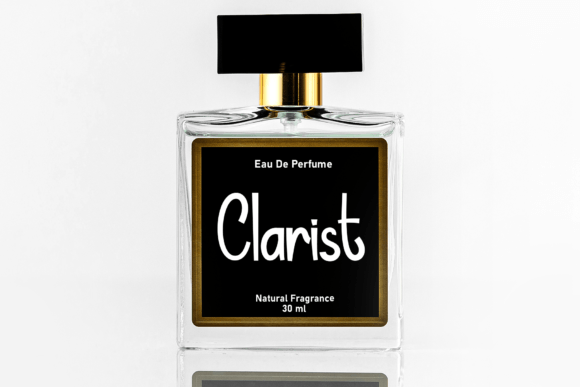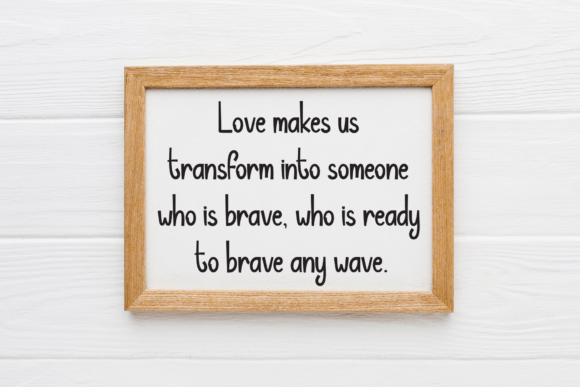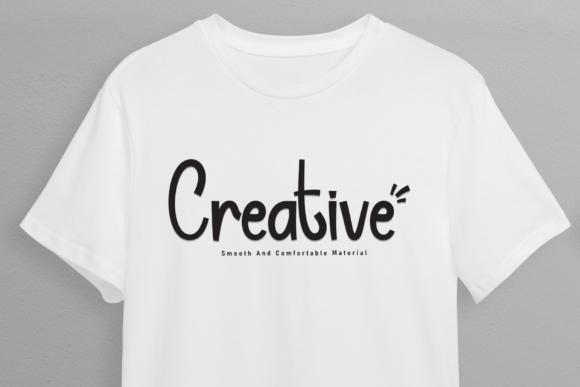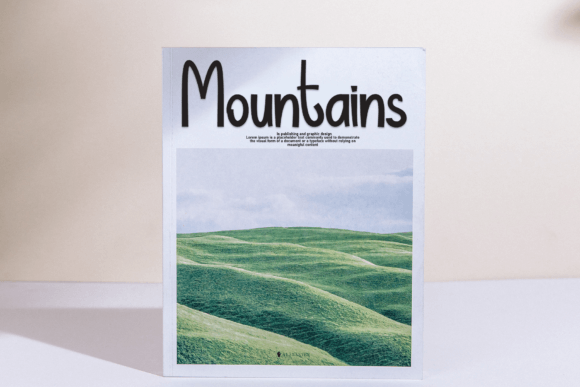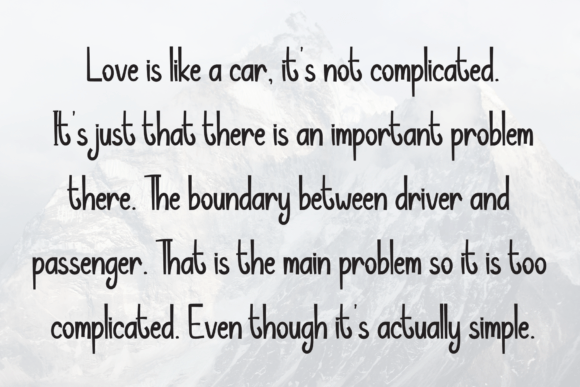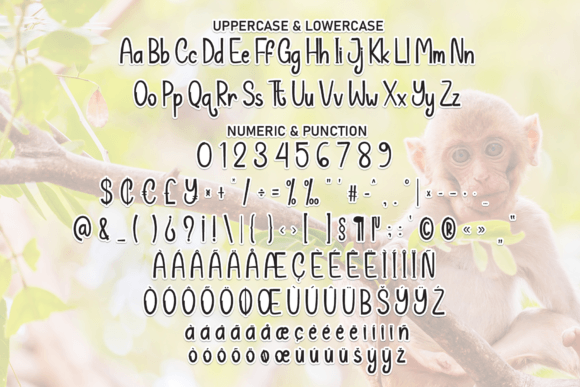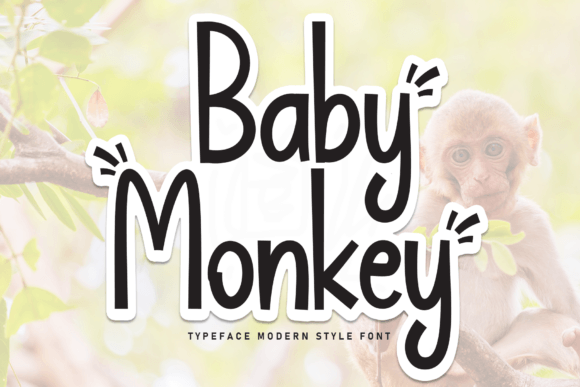
Baby Monkey Font: A Charming Handwritten Typeface for Creative Projects
Are you looking for a font that can add a personal touch to your designs? Look no further than the Baby Monkey Font. This charming handwritten font combines elegance with a whimsical character, making it perfect for a variety of creative projects. In this article, we’ll take a closer look at the Baby Monkey Font, its features, and how you can use it to bring warmth and personality to your designs.
What is Baby Monkey Font?
Baby Monkey Font is a beautiful handwritten typeface that is designed to evoke a sense of warmth and coziness. Its smooth, flowing strokes and whimsical character make it perfect for projects that require a personal touch. Whether you’re designing invitations, branding materials, or creative projects, Baby Monkey Font is a versatile typeface that can help you achieve your design goals.
Features of Baby Monkey Font
So, what makes Baby Monkey Font so special? Here are some of its key features:
- Smooth, flowing strokes: Baby Monkey Font features smooth, flowing strokes that give it a elegant and refined look.
- Whimsical character: The font has a playful and whimsical character that makes it perfect for creative projects.
- Handwritten feel: Baby Monkey Font has a handwritten feel that gives it a personal and unique touch.
- Versatile: The font is versatile and can be used for a variety of projects, including invitations, branding materials, and creative projects.
Uses of Baby Monkey Font
Baby Monkey Font is a versatile typeface that can be used for a variety of projects. Here are some of the ways you can use it:
- Heartfelt invitations: Baby Monkey Font is perfect for designing heartfelt invitations, such as wedding invitations, baby shower invitations, and birthday invitations.
- Cozy branding: The font can be used to create cozy and inviting branding materials, such as logos, business cards, and brochures.
- Creative projects: Baby Monkey Font can be used for a variety of creative projects, such as scrapbooking, journaling, and mixed media art.
Benefits of Using Baby Monkey Font
So, why should you use Baby Monkey Font for your projects? Here are some of the benefits of using this charming typeface:
- Adds a personal touch: Baby Monkey Font adds a personal touch to your designs, making them more unique and special.
- Creates a warm and cozy feel: The font creates a warm and cozy feel that can help you connect with your audience.
- Versatile: Baby Monkey Font is versatile and can be used for a variety of projects, making it a great addition to your font collection.
Tips for Using Baby Monkey Font
Here are some tips for using Baby Monkey Font effectively:
- Use it for headings and titles: Baby Monkey Font is perfect for headings and titles, where you want to make a statement.
- Pair it with other fonts: You can pair Baby Monkey Font with other fonts to create a unique and interesting look.
- Experiment with different colors: The font looks great in a variety of colors, so don’t be afraid to experiment and find the perfect color for your project.
In conclusion, Baby Monkey Font is a charming handwritten typeface that combines elegance with a personal touch. Its smooth, flowing strokes and whimsical character make it perfect for a variety of creative projects. Whether you’re designing invitations, branding materials, or creative projects, Baby Monkey Font is a versatile typeface that can help you achieve your design goals. So, why not give it a try and see how it can bring warmth and personality to your designs?
Recommendation: If you’re looking for a font that can add a personal touch to your designs, Baby Monkey Font is a great choice. Its unique character and versatility make it perfect for a variety of creative projects.